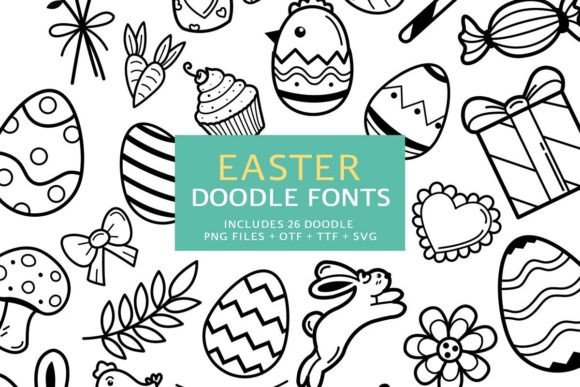
Looking for the best fonts for your baby script project? Look no further than Easter Doodle Font! Created by digitalplannerland, this playful and modern dingbats font is sure to elevate your designs and bring them to life.
With its lightweight style, Easter Doodle Font is perfect for both traditional media and the web. Whether you're a crafter looking to add a touch of fun to your handmade projects or a graphic artist looking for a versatile font to use in your digital designs, Easter Doodle Font has got you covered.
Compatible with popular design tools such as Photoshop and Illustrator, Easter Doodle Font is easy to use and perfect for all your creative projects. Its playful and modern design makes it ideal for a variety of applications, whether you're looking to create an inspirational diary or present your report in a fun and engaging way.